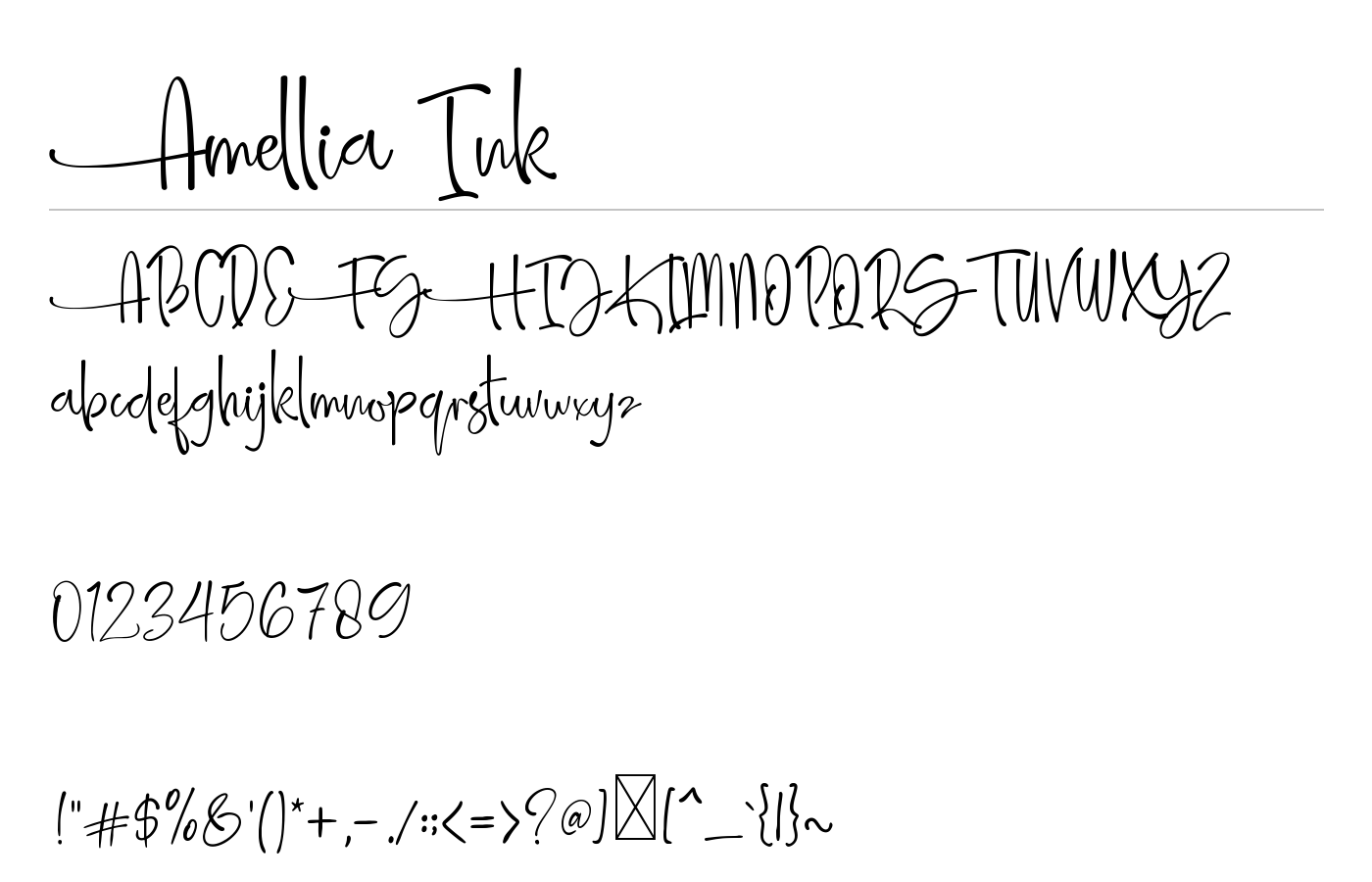
Amellia Ink is a delicate and stylish handwritten script font characterized by its tall, slender letterforms and elegant, flowing lines. Its light weight and casual, slightly whimsical style make it perfect for creative projects that need a personal, artistic touch, such as invitations, branding, and feminine editorial designs. This font works especially well for headlines and decorative text where a warm, approachable, and unique look is desired.
Amellia Ink Font
About Amellia Ink Font
| Font family | Amellia Ink Font |
| Designer | Burhan Afif |